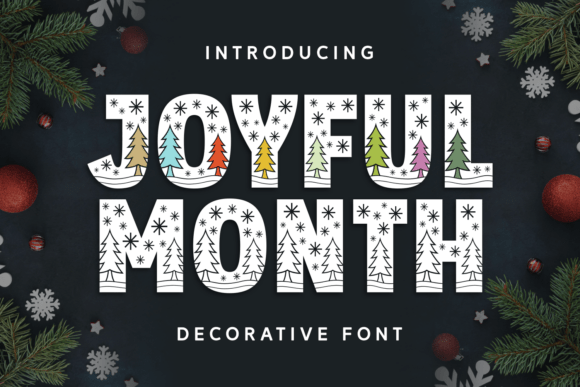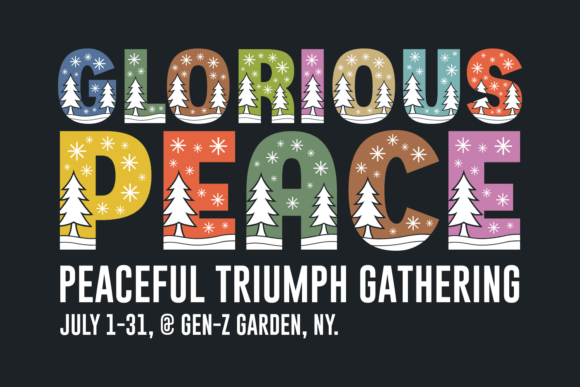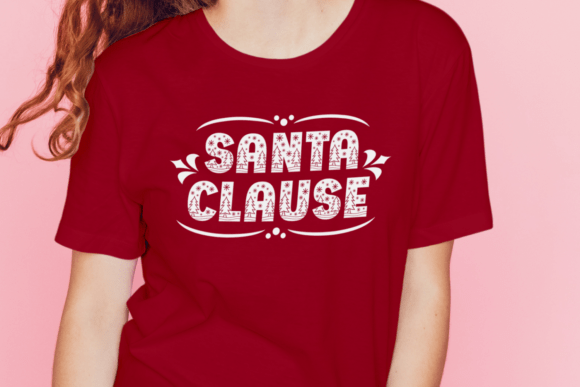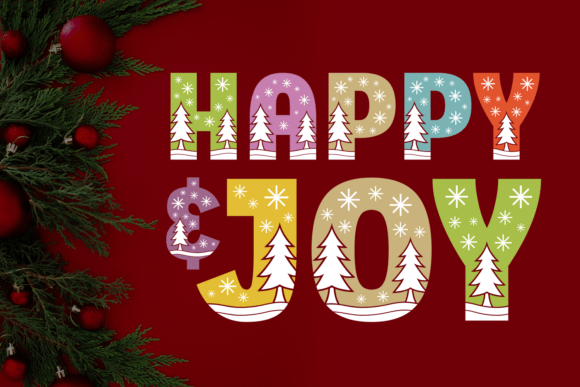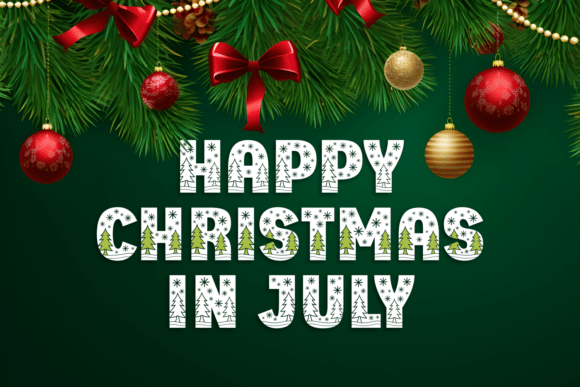
Deck the Halls with Typography: Introducing the Joyful Month Font
As the holiday season approaches, designers and marketers are on the lookout for the perfect font to capture the magic and cheer of the season. For those who have been searching for a typeface that embodies the essence of winter wonderland, your search is over. The Joyful Month Font is here to bring a touch of festive flair to your designs.
This charming font is more than just a decorative typeface – it’s a celebration of the holiday season in every letter. With its unique integration of stylized Christmas trees and festive motifs, the Joyful Month Font is sure to delight anyone who sees it. Whether you’re creating greeting cards, holiday advertisements, or festive product packaging, this font is the perfect way to add some extra joy to your designs.
- Font Family: Joyful Month Font is a sans-serif font family designed for modern and playful applications.
- Unique Characteristics: Joyful Month Font features a unique, hand-drawn design with subtle rounded edges and a friendly feel, making it perfect for creating eye-catching and engaging designs.
- Language Support: Supports a wide range of languages, including Latin, Cyrillic, and Greek alphabets, making it suitable for global design applications.
Designer Review: Joyful Month Font
First off, I want to say that I appreciate the effort that went into creating the Joyful Month Font. It’s a unique and playful design that can definitely add a touch of whimsy to your projects. ✨ The rounded edges and friendly curves make it perfect for designs that need a bit of warmth and approachability.
One thing that I particularly like about this font is its versatility. It’s suitable for a wide range of projects, from children’s book illustrations to social media graphics and even wedding invitations. ✨ The font is also highly legible, making it easy to read even at small font sizes.
While the Joyful Month Font has its strengths, it does have some limitations. ⚠️ One of the main issues is its limited character set. It’s not suitable for projects that require a wide range of special characters or foreign languages. ⚠️ Additionally, the font can feel a bit too playful at times, which may not be suitable for more serious or formal projects.
Overall, I think the Joyful Month Font is a great addition to any designer’s toolkit. While it may not be perfect for every project, it’s a fun and versatile font that can add a lot of personality to your designs. With a bit more development to address its limitations, I think this font has the potential to be a real showstopper.
Recommendations
- Use the Joyful Month Font for projects that need a playful and approachable tone.
- Choose a more serious font for projects that require a formal or professional tone.
- Consider using a font with a wider character set for projects that require a lot of special characters or foreign languages.
Tips for Getting the Most Out of Joyful Month Font
Here are some tips to help you get the most out of Joyful Month Font:
- Use Joyful Month Font for titles and headings to add a touch of whimsy and playfulness.
- Pair Joyful Month Font with a bold font for a striking contrast.
Here are some common use cases for Joyful Month Font:
- Creating eye-catching social media graphics.